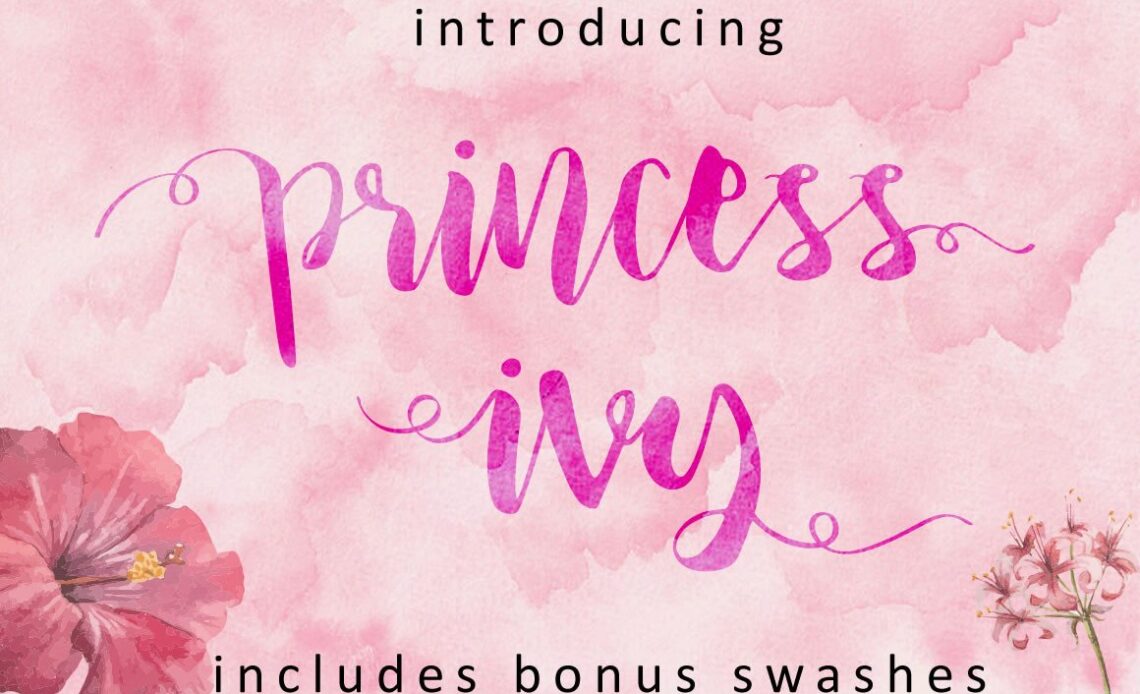
Behold, Princess Ivy Font, a beautifully crafted script font family designed by the renowned Little Big Bundle. Each character is meticulously hand-painted with a delicate brush, then digitally scanned and refined to perfection.
Princess Ivy is a force to be reckoned with, a font that commands attention with its bold and independent spirit. It's the perfect choice for adding a touch of elegance and sophistication to your designs.
Envision the allure of Princess Ivy adorning your invitations and thank-you notes, lending an air of grace and charm to every word. Its strength and resilience shine through on wooden signs, while its easy-to-read nature makes it ideal for adding decorative text to any object, digital or physical.
The Princess Ivy font family comes in two captivating variations:
- **Princess Ivy Regular:** The foundation of the family, Princess Ivy Regular exudes a timeless elegance that complements any design aesthetic.
- **Princess Ivy Swashes:** Add a touch of whimsy and playfulness with Princess Ivy Swashes, featuring a collection of graceful swashes and flourishes that elevate your designs to new heights.
Let Princess Ivy Font ignite your creativity and transform your designs into captivating works of art. Its versatility knows no bounds, making it the perfect choice for a wide range of projects, including:
- **Logos and Branding:** Create logos and brand identities that exude sophistication and leave a lasting impression.
- **Wedding Invitations and Stationery:** Add a touch of romance and elegance to your wedding invitations and stationery, setting the tone for a truly unforgettable celebration.
- **Social Media Graphics:** Captivate your audience with visually stunning social media graphics that stand out from the crowd.
- **Product Packaging and Labels:** Elevate your product packaging and labels with Princess Ivy's unique and eye-catching style.
- **Home Decor:** Bring warmth and personality to your living space with decorative signs, wall art, and other home décor items adorned with Princess Ivy's beautiful characters.